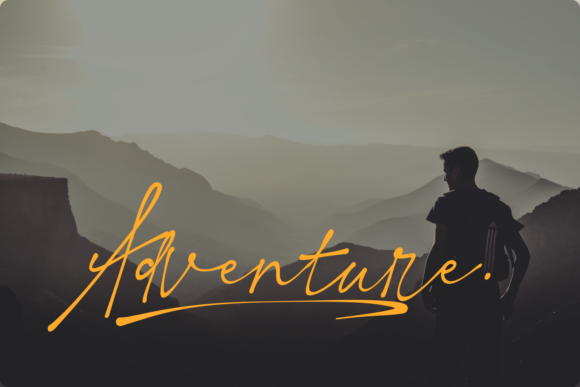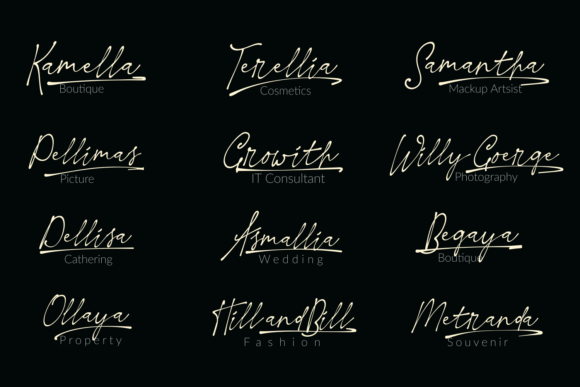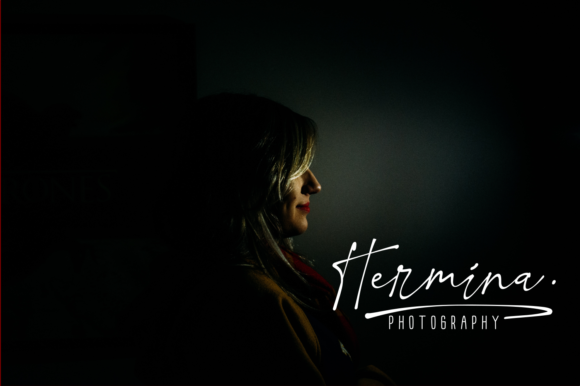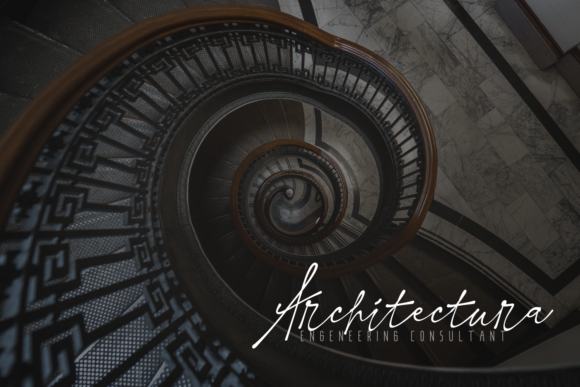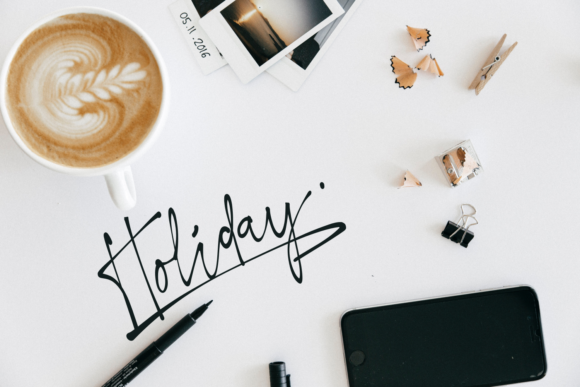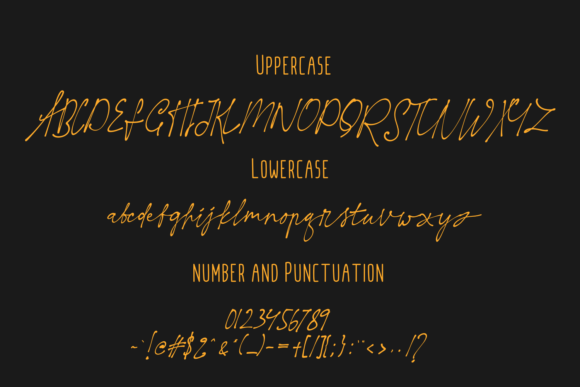
Introduction to Hot Nice Font
Have you ever been working on a creative project, pouring your heart and soul into it, only to realize that something’s missing? That’s where the perfect font can make all the difference. For designers, finding the right typography can be the key to transforming a good design into a great one.
That’s why we’re excited to introduce you to the Hot Nice Font, a charming and bold script font that’s sure to elevate your designs to the next level. With its authentic strokes and high-quality design, this gorgeous script font is the perfect addition to any design resource. Whether you’re working on a freelance project or a large-scale campaign, the Hot Nice Font is sure to turn heads and leave a lasting impression.
Key Features of Hot Nice Font
- High Quality Typography: Hot Nice Font is designed to deliver crisp and clear text, perfect for creative projects that require attention to detail.
- Large Character Set: With over 200 unique characters, Hot Nice Font is perfect for designers who need a versatile font for their creative project.
- High Resolution: Designed at 300 DPI, Hot Nice Font is suitable for print and digital applications, including posters, flyers, and business cards.
- Design Resource: This font is a valuable addition to any designer’s toolkit, offering a unique and stylish way to add visual interest to any creative project.
Honest Review: Hot Nice Font
I recently had the chance to work with the Hot Nice Font and I must say, it’s been a great addition to my design resource library. As a designer, I’m always on the lookout for high-quality fonts that can elevate my creative projects. The Hot Nice Font did not disappoint.
- ✨ Great selection of weights and styles: The Hot Nice Font comes with a variety of weights and styles, making it perfect for creating visually appealing designs.
- ✨ High-quality glyphs: The glyphs in the Hot Nice Font are crisp and clear, ensuring that my designs look their best.
Overall, I’m impressed with the Hot Nice Font and would recommend it to designers looking for a high-quality font to add to their design resource library. While it may have some limitations, the benefits far outweigh the drawbacks.
The Hot Nice Font is suitable for a wide range of creative projects, including business cards, brochures, and social media graphics. It is also a great choice for designers who want to create high-quality designs with a professional look and feel.